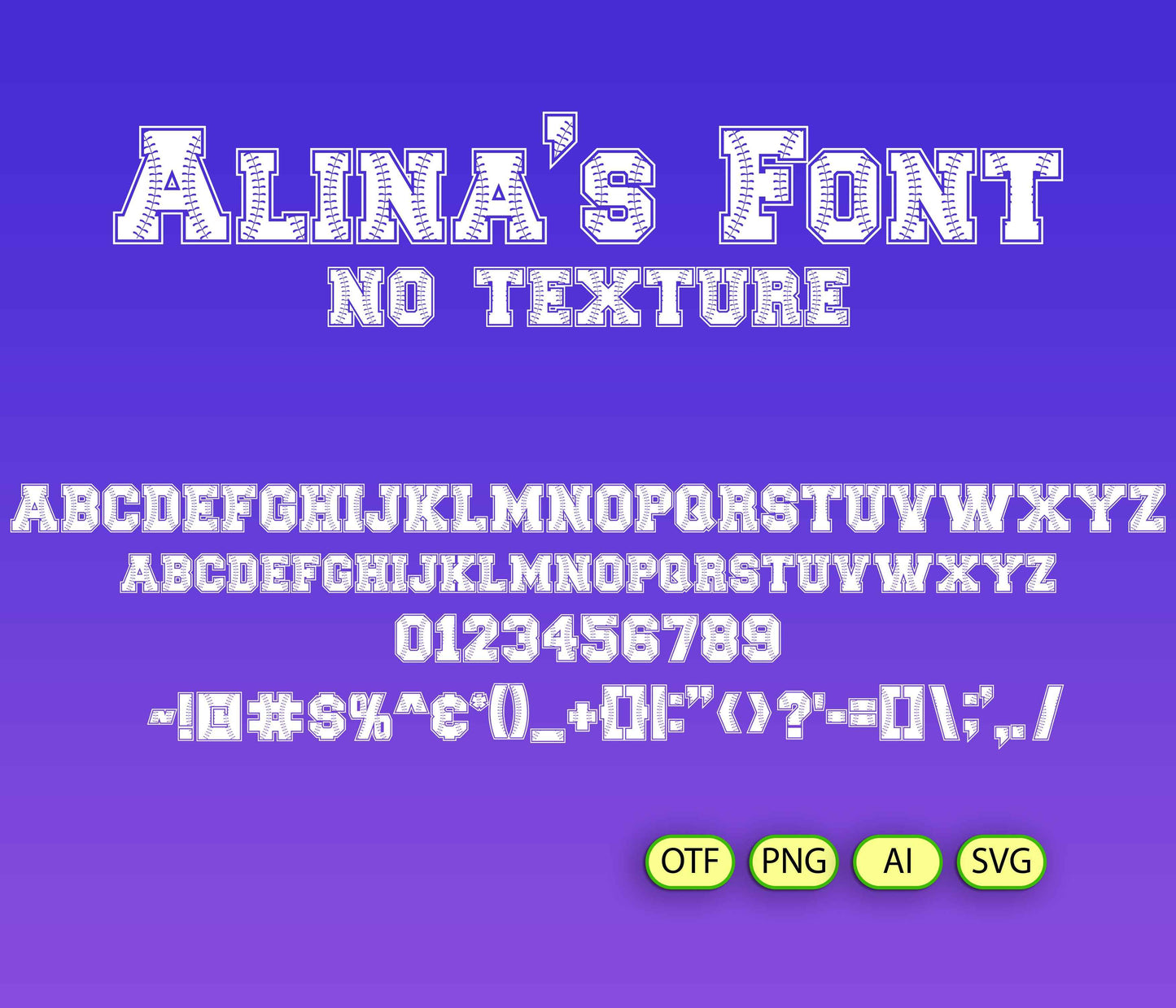
Ballpark Champion Font
Step into the world of diamond glory with our Ballpark Champion font, capturing the essence of classic sports lettering and athletic tradition. Perfect for team managers, sports merchandisers, event organizers, and digital creators, this clean-lined font brings professional athletic spirit to your projects. Create team gear, championship banners, or sporty content with the dynamic energy of America's favorite pastime.
Our Ballpark Champion font features bold, dynamic lines and powerful characters reflecting the competitive spirit of the game. Ideal for:
1. Team Merchandise: Design professional jerseys, caps, and athletic wear with clean, precise lettering.
2. Sports Events: Create sharp, impactful banners, scorecards, and championship materials.
3. Digital Content: Enhance sports websites, team social media, and digital scoreboards with dynamic typography.
4. Fan Gear: Perfect for supporter merchandise, rally signs, and collector memorabilia.
5. Athletic Projects: Ideal for team rosters, training materials, and sports facility signage.
Our Ballpark Champion clean font version ensures compatibility with all software, including sports design platforms and professional cutting machines. This non-textured version is especially suited for precise athletic lettering and team branding, making it perfect for both digital and physical sports projects.
Our font pays tribute to athletic excellence, empowering your designs with its bold and dynamic spirit. Whether crafting team materials, designing sports merchandise, or adding competitive flair to special projects, this clean-lined font communicates athletic pride with professional precision. Ready to hit a home run with your designs? This font is your key to championship-level creation.